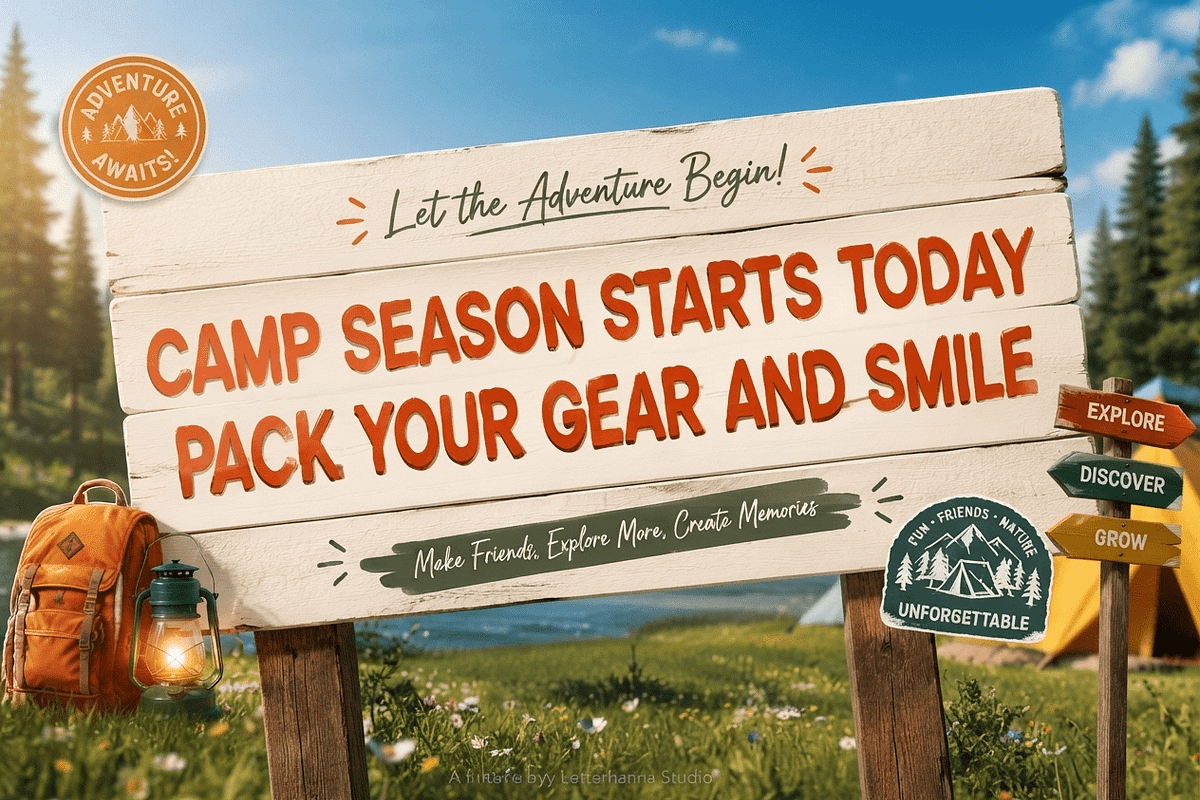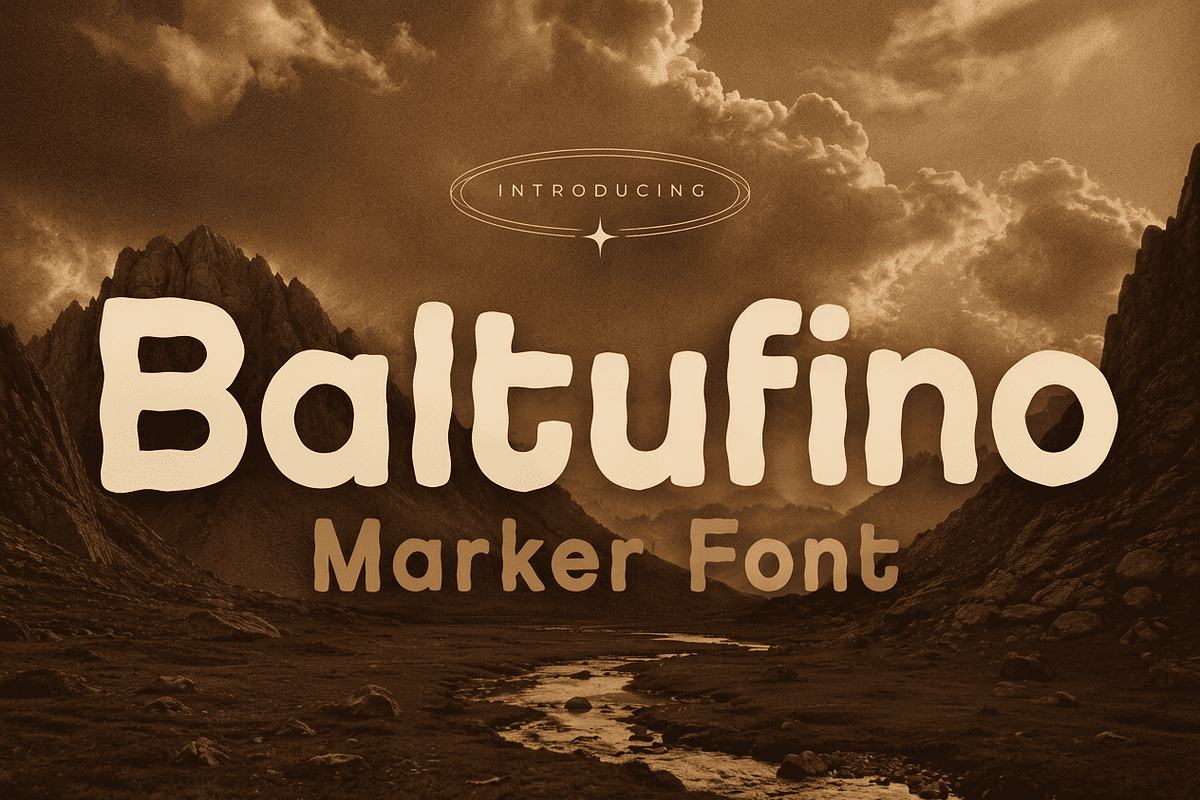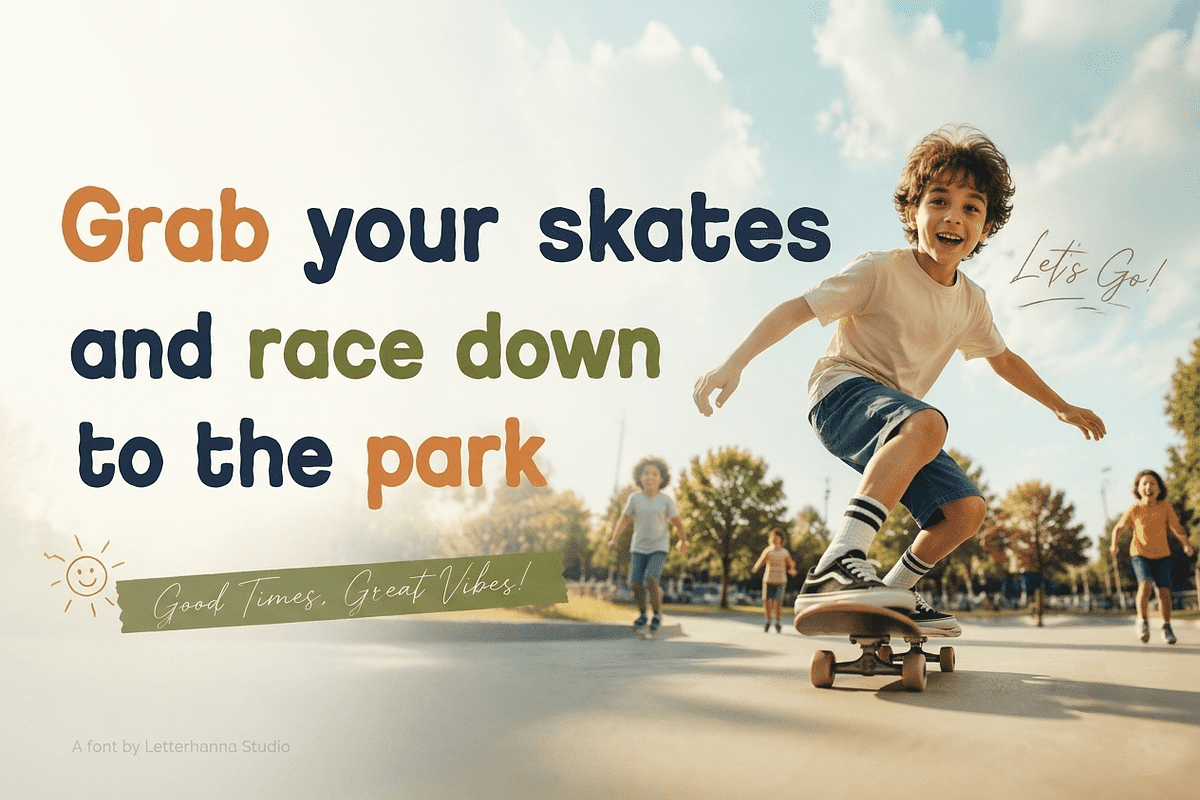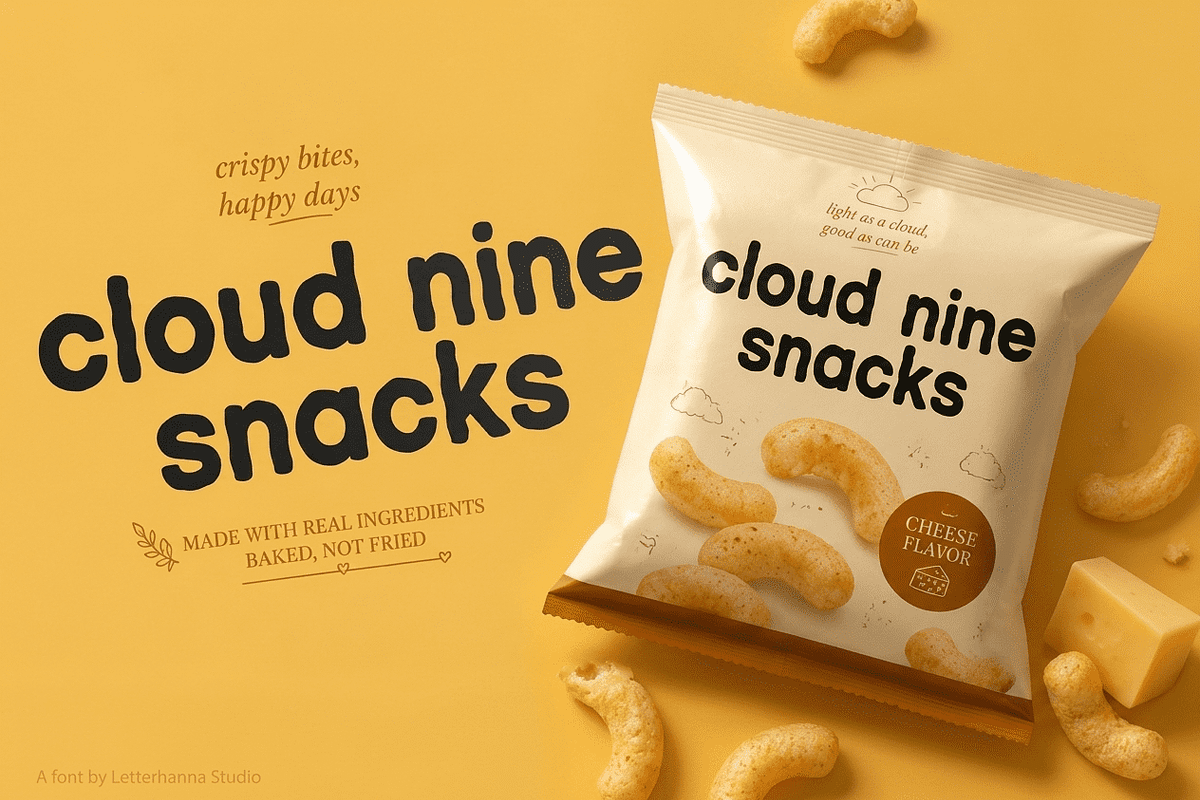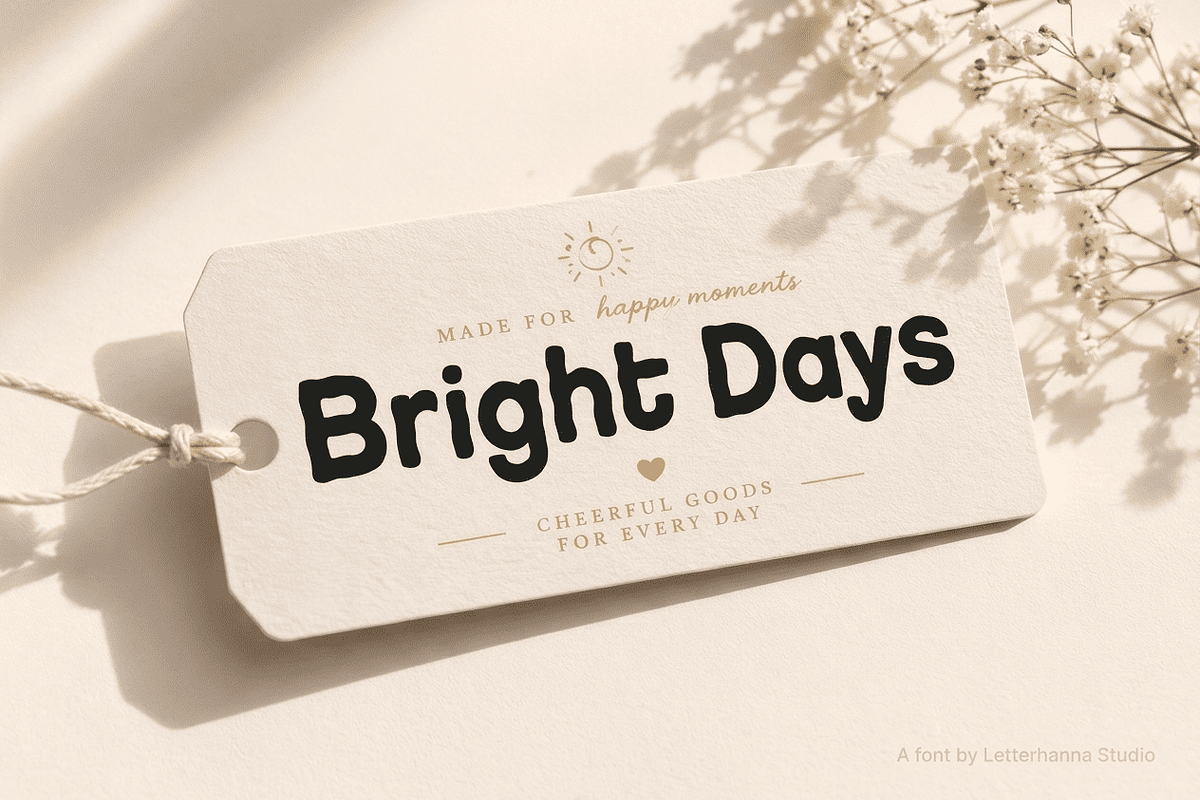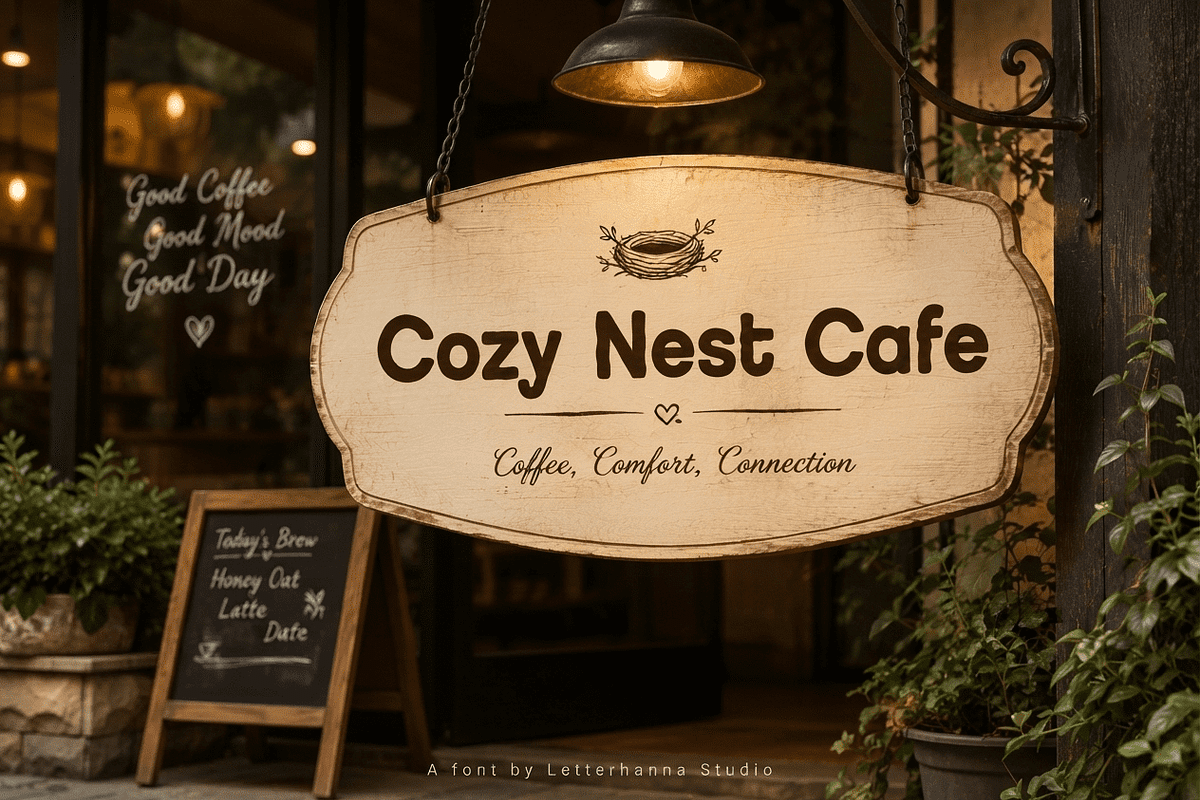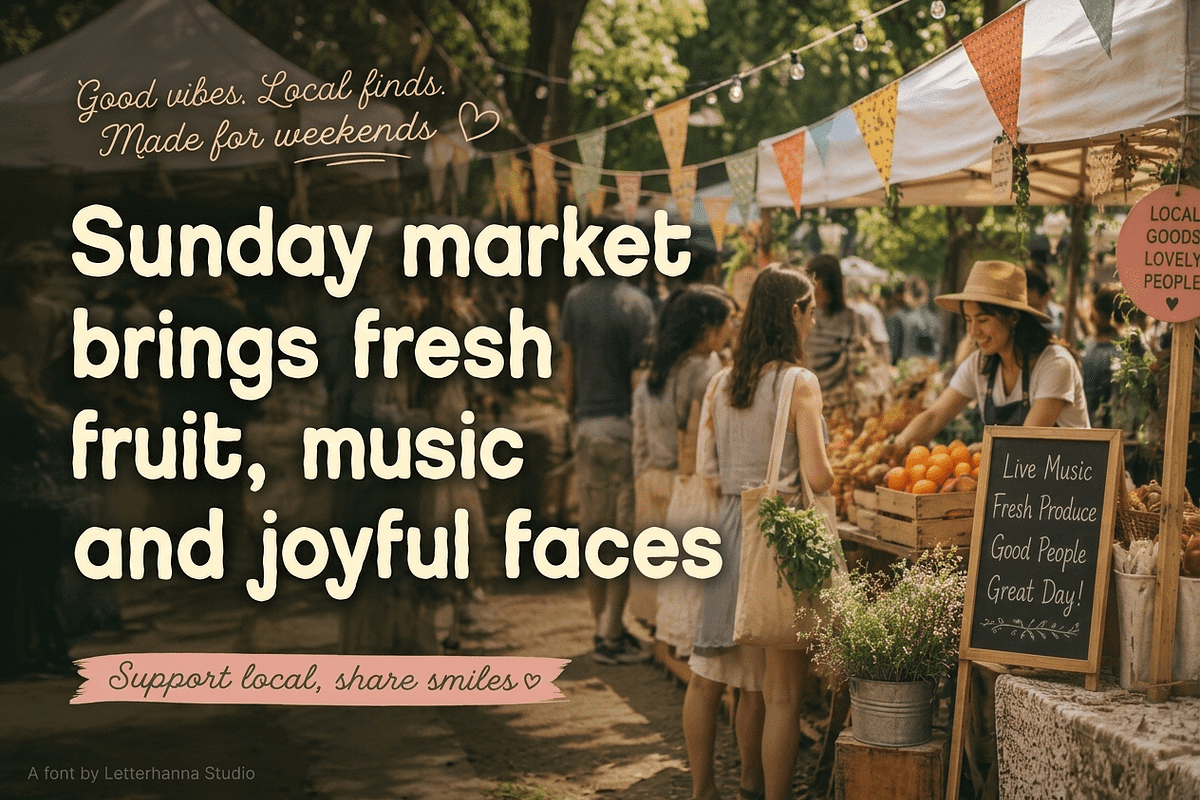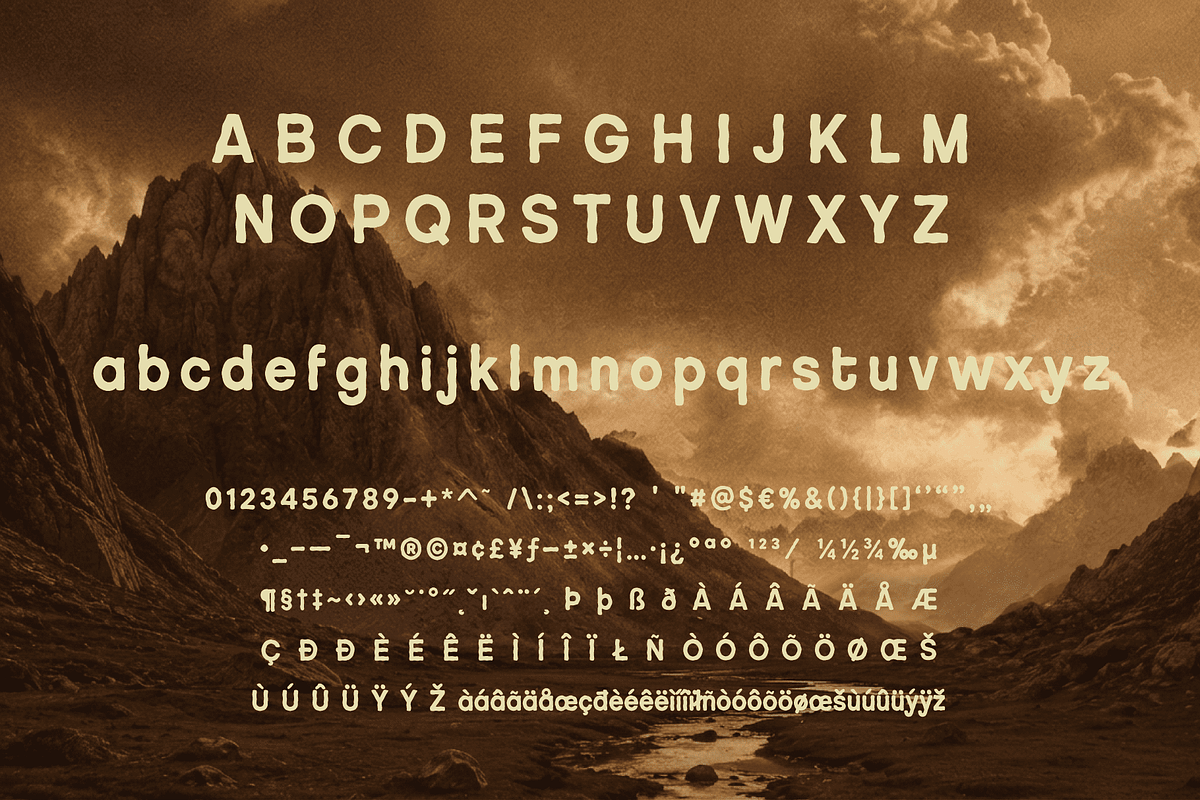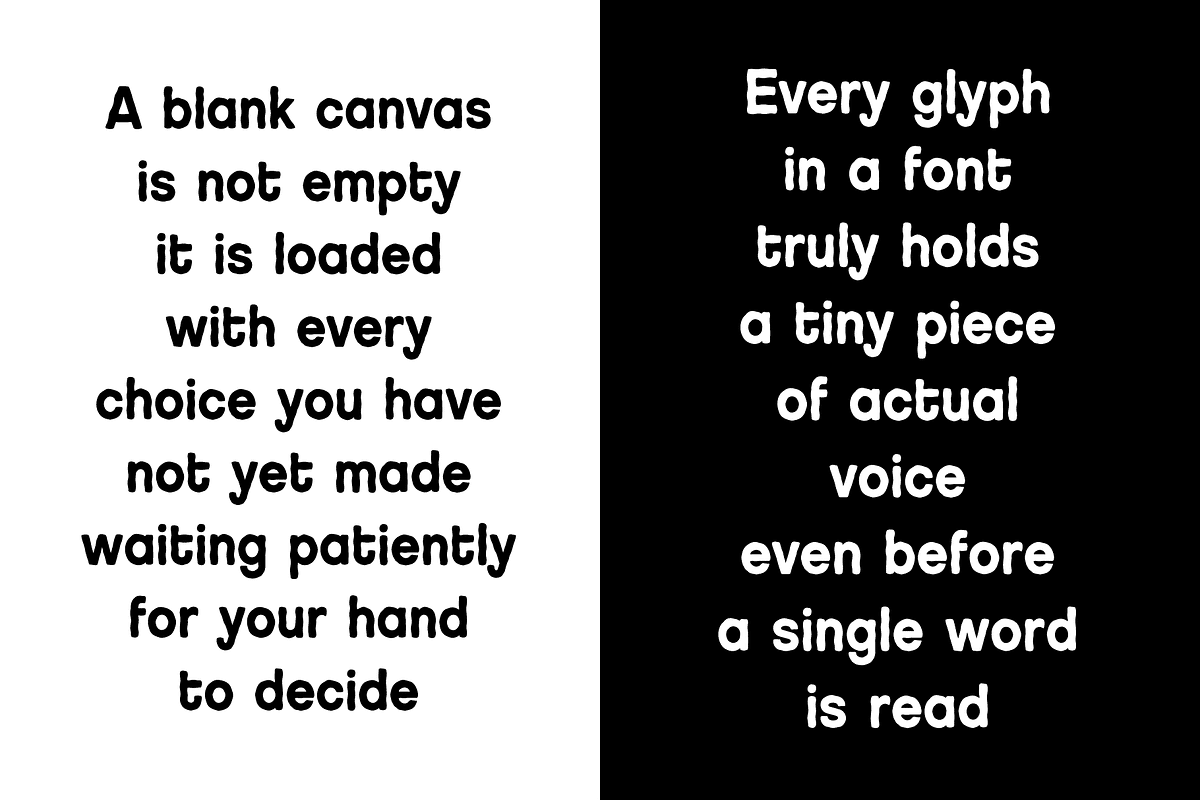
Baltufino Bold Handwritten Marker
There's something honest about hand lettering — the wobble in a stroke, the confidence of a marker dragged fast across paper without a ruler in sight. Baltufino was designed to bottle that exact feeling. It's a bold handwritten marker font built on the quiet structure of a hand-lettered sans serif, so it carries all the warmth of real handwriting while still working hard as an actual typeface.
Every letter in Baltufino is thick, rounded, and unapologetically bold — no thin hairlines, no delicate flourishes, just confident strokes with soft, blunt terminals that mimic real marker ink. But underneath that texture, the letterforms stay consistent: even weight, steady baseline, generous counters that keep everything legible even at small sizes. That's what makes Baltufino different from a novelty script — it's a font you can actually design with.
Use it for logos and wordmarks that need a friendly, handmade feel. Use it on packaging and product labels that need to pop on a shelf. Use it for Pinterest pins, Instagram graphics, posters, market signage, or a one-word statement tee. Wherever you need bold personality that still reads clean, Baltufino delivers.
If your brand voice is more "friendly and confident" than "corporate and cold," this is the font that does the emotional heavy lifting before anyone even reads your words.